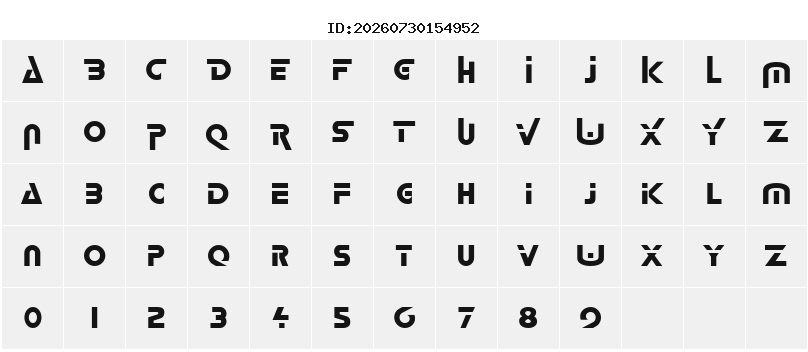
• Font Name: Lynz
• Full Font Name: Lynz Regular
Lynz.ttf is a modern, elegant sans-serif font designed for ultimate readability and visual harmony. Perfect for branding, headlines, web design, and print materials.